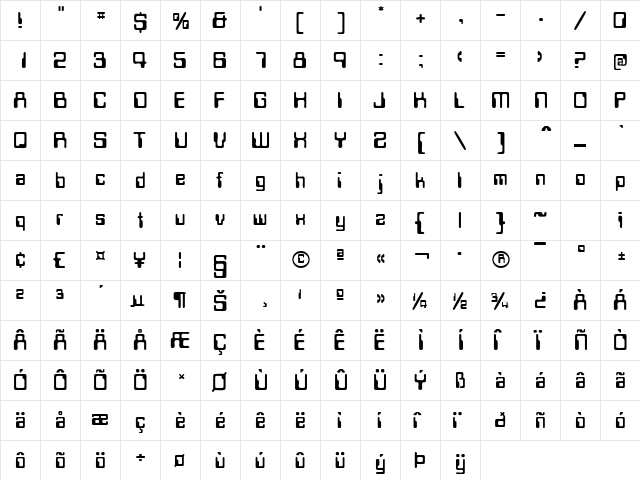
MagCardSSK Regular
Design Context for MagCardSSK Typeface
MagCardSSK offers clean, dependable letterforms without strong stylistic allegiance, making it a practical choice for designers who need flexibility.
Pro Tip: Use MagCardSSK in both headline and body roles to test its range before committing to a single application.